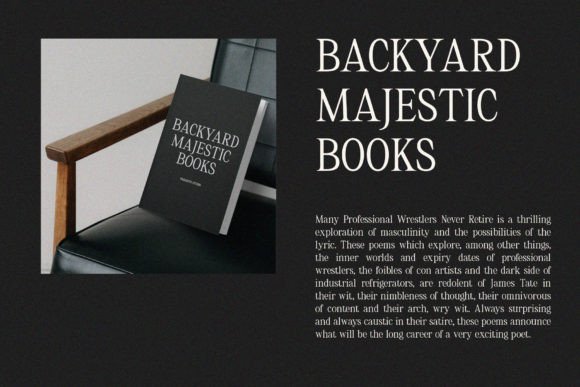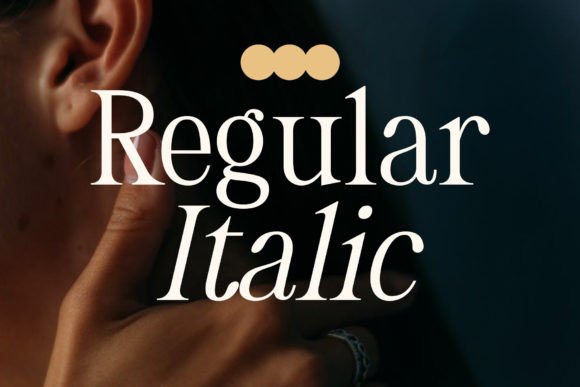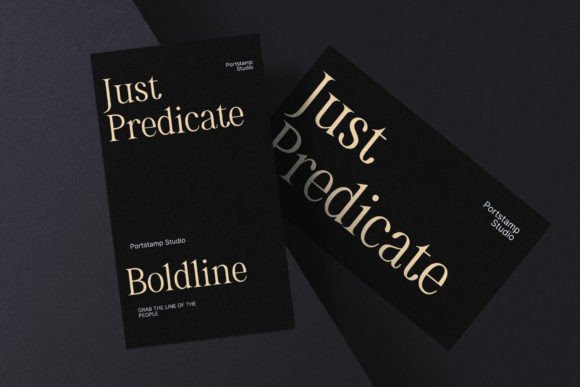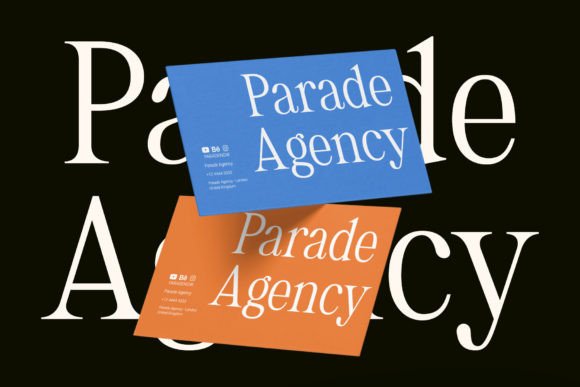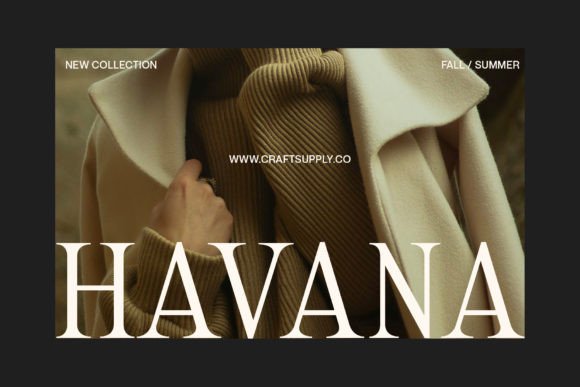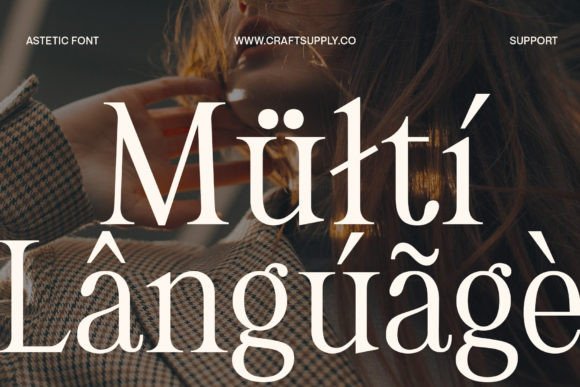
Introducing Asthetic: The Timeless Serif Font for Nostalgic Designs
In the world of typography, few fonts manage to capture the essence of bygone eras as effectively as Asthetic. This nostalgic serif font is designed to transport your designs back in time, infusing them with a sense of vintage charm and timeless elegance. Whether you’re a designer, craftsperson, or simply someone who appreciates the beauty of classic typography, Asthetic is the perfect choice for your next project.
The Essence of Asthetic
At its core, Asthetic is a font that embodies the spirit of nostalgia. Its carefully crafted lines and curves evoke a sense of familiarity, reminiscent of classic designs from the past. With Asthetic, you can add a touch of vintage sophistication to your projects, making them stand out in a world of modern, sans-serif typography.
One of the key features that sets Asthetic apart is its timeless quality. Unlike trendy fonts that quickly go out of style, Asthetic’s classic design ensures that your projects will remain stylish and relevant for years to come. This makes it an excellent choice for designers and craftspersons who want to create designs that won’t date quickly.
Uses for Asthetic
So, what can you use Asthetic for? The possibilities are endless! Here are a few ideas to get you started:
- Greeting Cards: Add a touch of vintage charm to your greeting cards with Asthetic. Whether it’s a birthday, wedding, or holiday card, Asthetic’s classic design is sure to impress.
- Packaging: Make your product packaging stand out with Asthetic. Its timeless lines and curves will add a touch of sophistication to any product.
- Brand Identity: Establish a strong brand identity with Asthetic. Its classic design makes it an excellent choice for logos, letterheads, and other marketing materials.
- Posters: Create eye-catching posters with Asthetic. Its bold, yet elegant design is sure to grab attention.
Why Choose Asthetic?
So, why should you choose Asthetic for your next project? Here are just a few reasons:
- Unique Design: Asthetic’s unique design sets it apart from other serif fonts. Its carefully crafted lines and curves create a truly distinctive look.
- Timeless Quality: As mentioned earlier, Asthetic’s classic design ensures that your projects will remain stylish and relevant for years to come.
- Versatility: Asthetic is an incredibly versatile font. Use it for everything from greeting cards to packaging, and from brand identity to posters.
- Easy to Read: Despite its ornate design, Asthetic is surprisingly easy to read. This makes it an excellent choice for body text, as well as headlines.
Getting Creative with Asthetic
One of the best things about Asthetic is its flexibility. Here are a few tips for getting creative with this amazing font:
- Experiment with Colors: Try pairing Asthetic with different colors to create unique and eye-catching designs.
- Play with Sizes: Don’t be afraid to experiment with different font sizes. Asthetic looks great in both large and small sizes.
- Add Texture: Add texture to your designs by layering Asthetic over images or other textures.
In conclusion, Asthetic is a truly unique and versatile font that’s perfect for designers, craftspersons, and anyone who appreciates the beauty of classic typography. Its timeless lines and vintage charm make it an excellent choice for a wide range of projects, from greeting cards to packaging, and from brand identity to posters. So why not give Asthetic a try? With its flexibility, ease of use, and stunning design, it’s sure to become a favorite in your design arsenal.
Feel free to play with Asthetic and explore its many uses. Whether you’re a seasoned designer or just starting out, Asthetic is sure to inspire your creativity and help you create stunning designs that will leave a lasting impression.